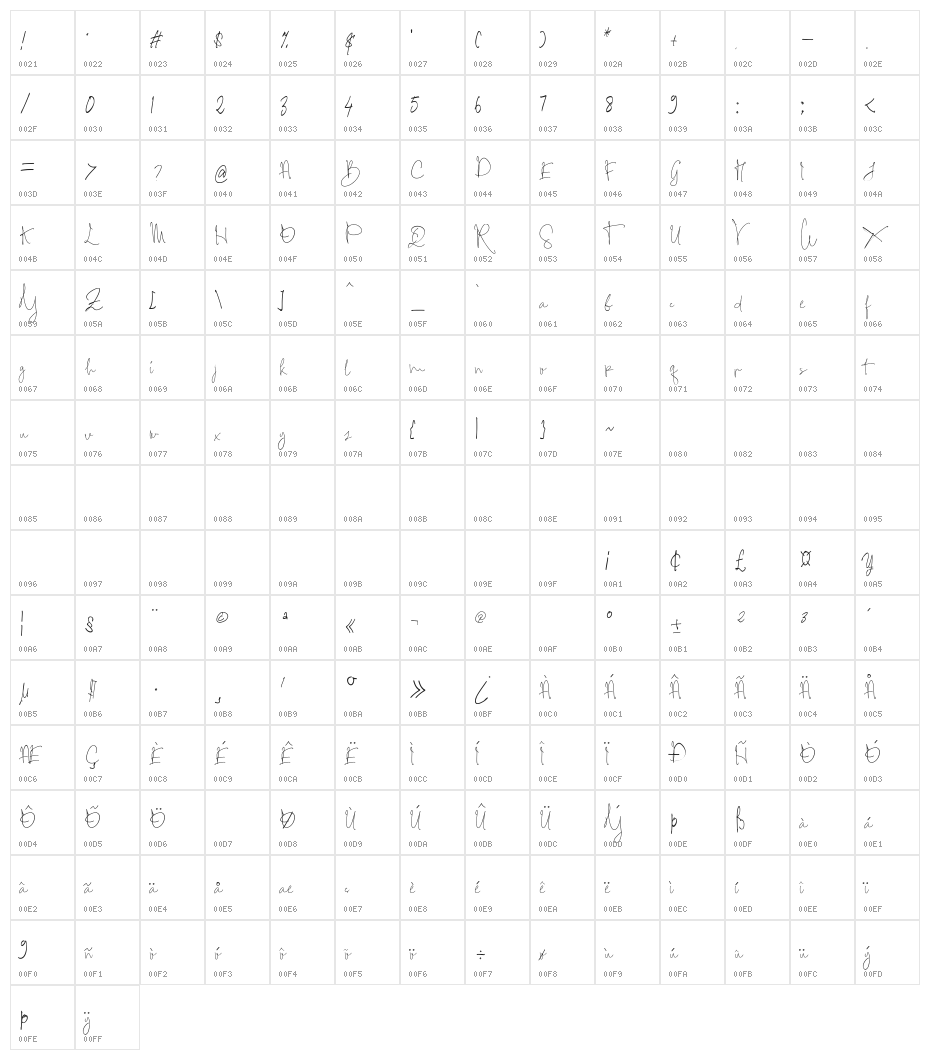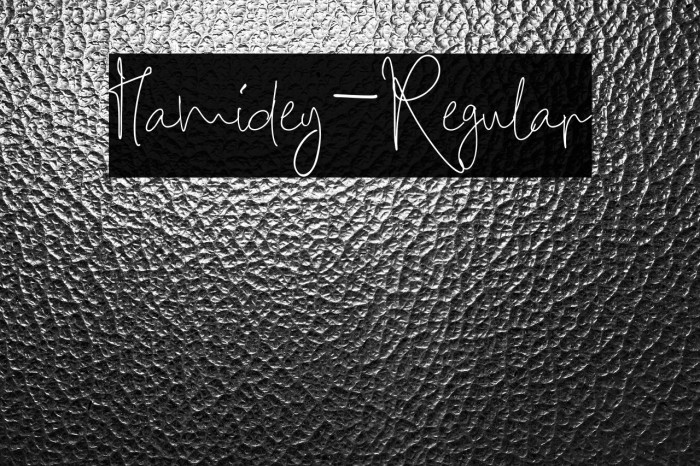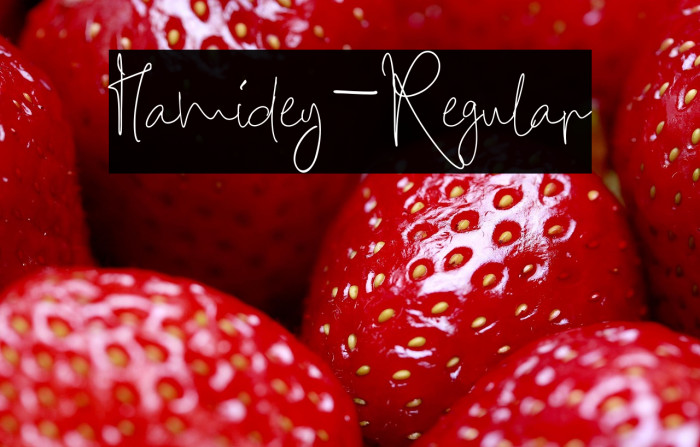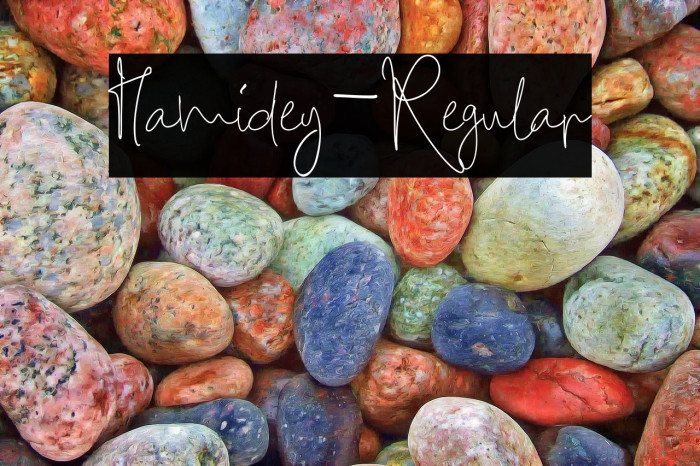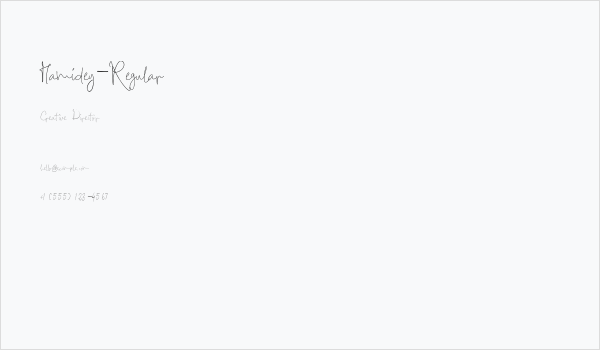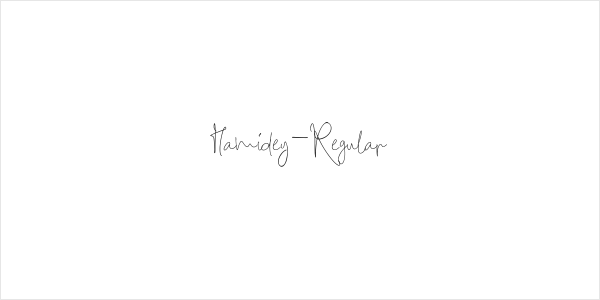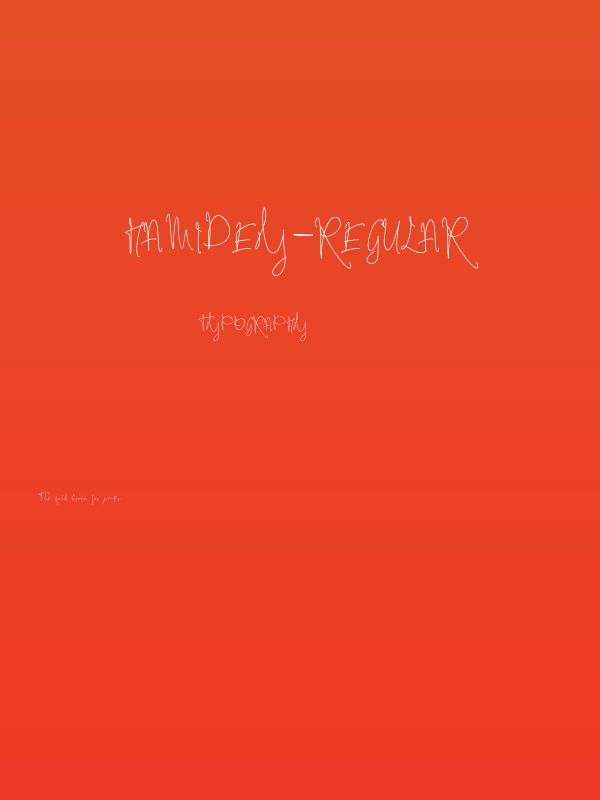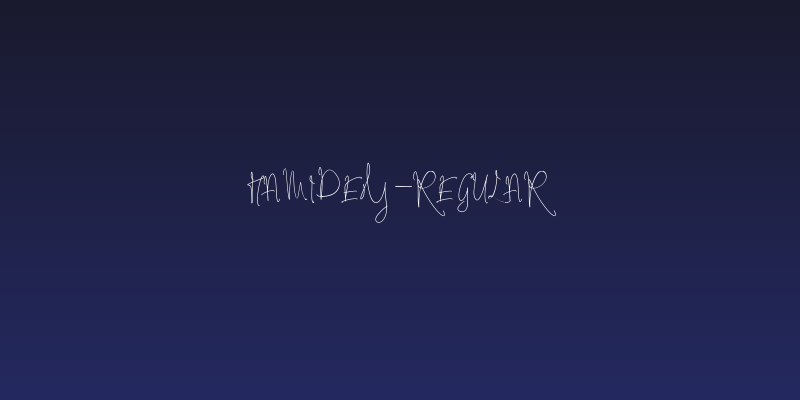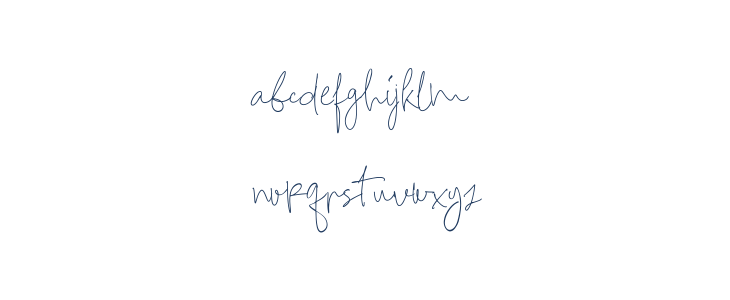
Hamidey-Regular Font
Hamidey-Regular Description
This font exudes a whimsical and artistic flair, characterized by its flowing, cursive style. The letters are interconnected with a fluid motion, giving it a handwritten appearance that is both elegant and casual. The uppercase letters are tall and slender, with exaggerated loops and curves that add a playful touch. The lowercase letters maintain a consistent style, with smooth transitions and rounded forms. The numerals are distinct yet harmonious with the overall design, featuring similar curves and loops. Special characters are creatively integrated, maintaining the font's unique aesthetic. This font is perfect for projects that require a personal, artistic touch, such as invitations, greeting cards, or creative branding.
| Use Case | Logos, Headlines, Creative projects |
| Proposed Projects | Ideal for invitations, greeting cards, artistic branding, and creative projects. |